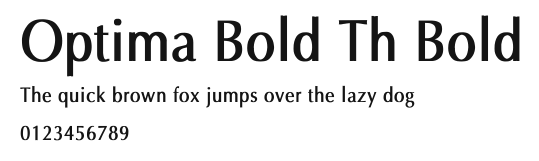
Optima Bold Th Bold.ttf is a modern, elegant sans-serif font designed for ultimate readability and visual harmony. Perfect for branding, headlines, web design, and print materials.